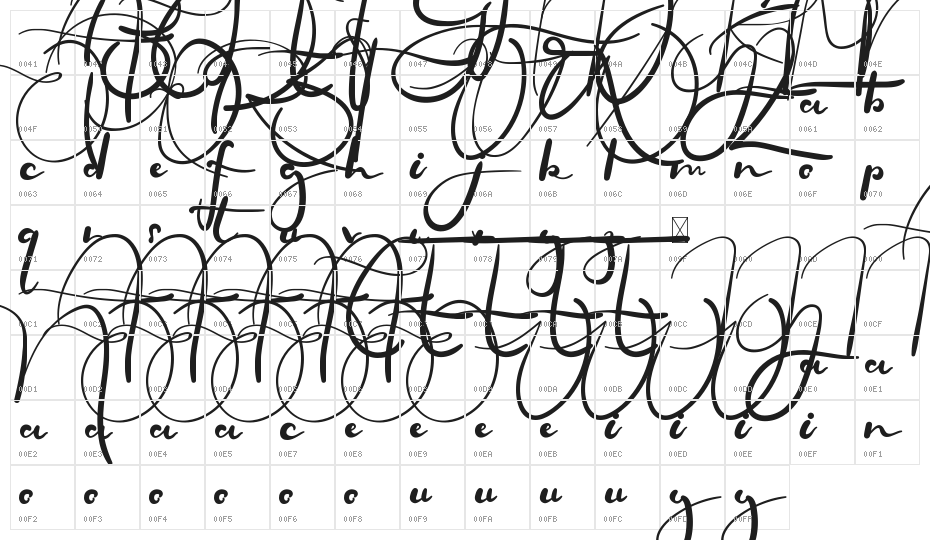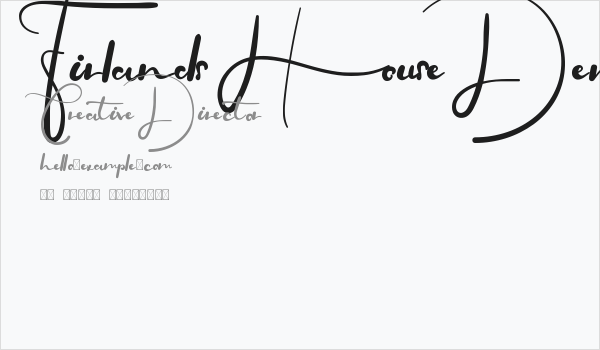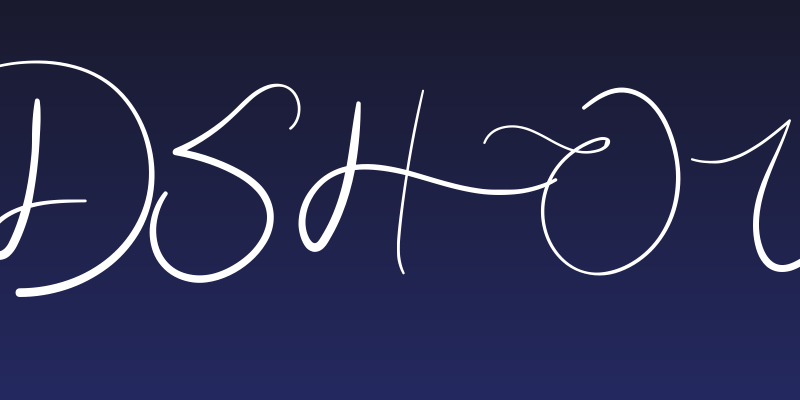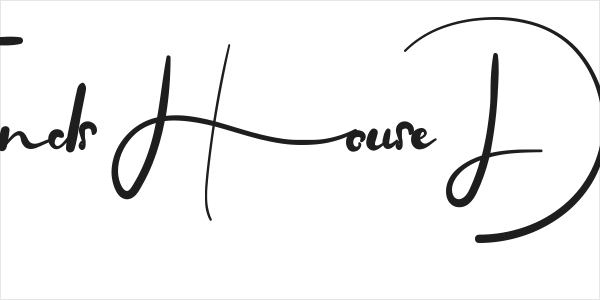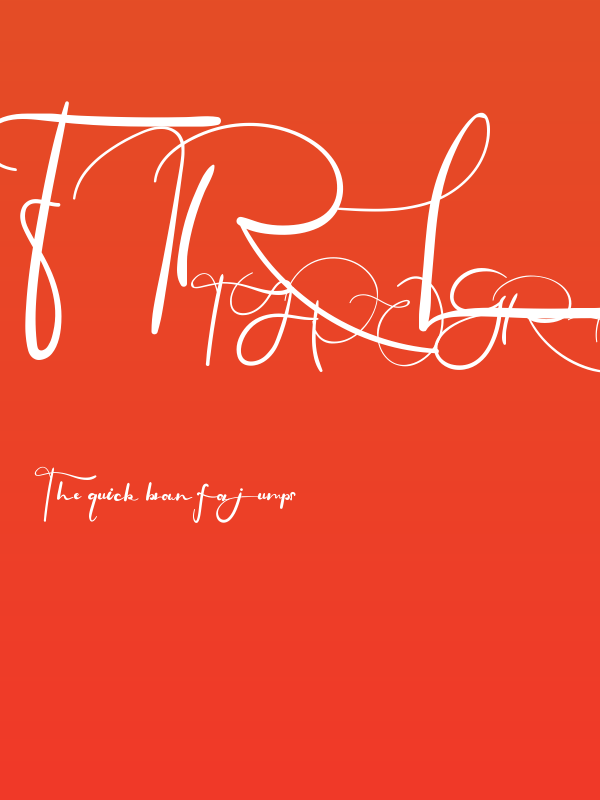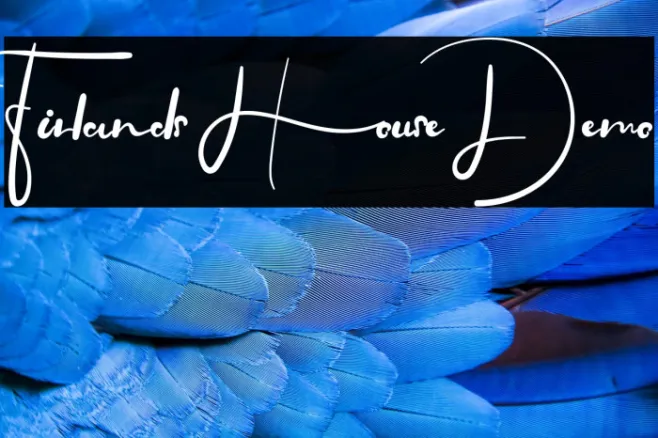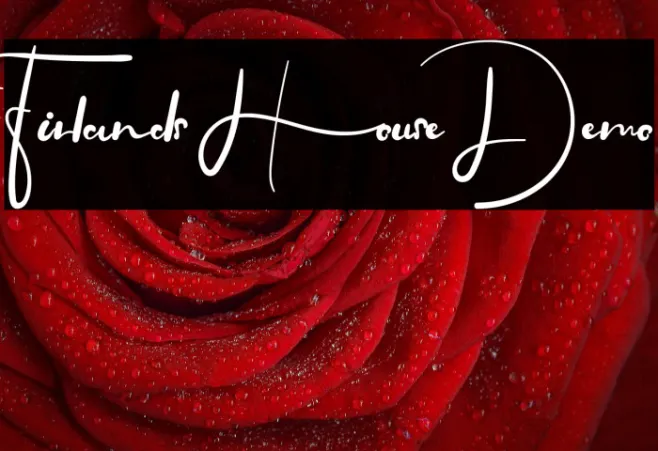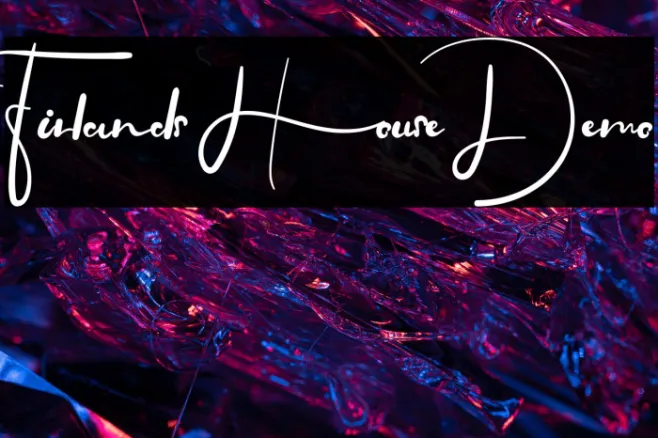
Firlands House Demo Font
Firlands House Demo Description
This font features an elegant and flowing script style, characterized by its intricate and interconnected letterforms. The uppercase letters exhibit a graceful and artistic flair, with extended loops and swashes that create a sense of movement and sophistication. The lowercase letters maintain a consistent flow, with some characters featuring unique and playful variations. The overall design is both decorative and legible, making it suitable for creative and expressive projects. The font's thin strokes and delicate curves add a touch of elegance, while the consistent baseline ensures readability.